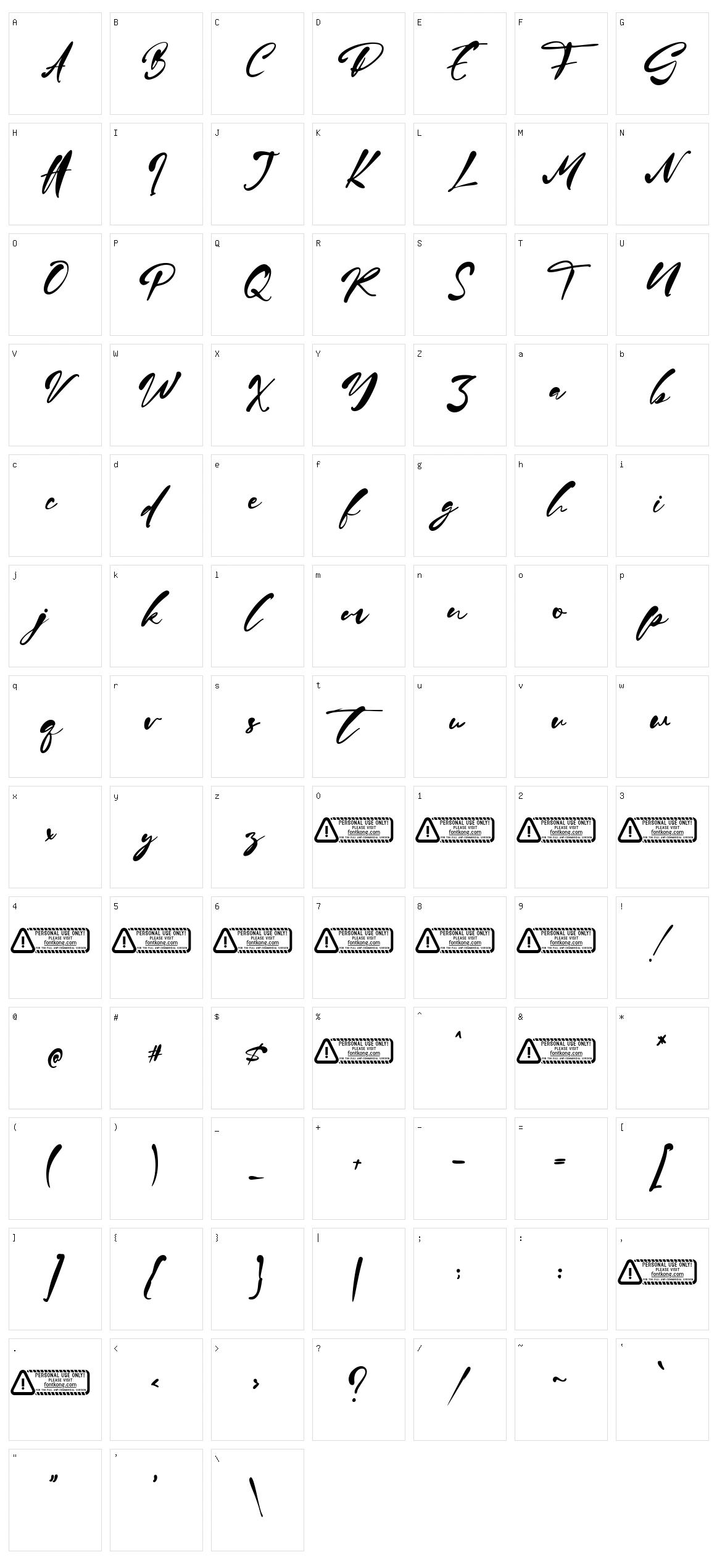
The free font Jason Mary is carefully designed by Kong Font, showcasing a thoughtful balance of creativity and usability and falls under the Script font style. When you download the ZIP file, it contains only 154.81 KB of font files, making it lightweight and quick to download. Please review the license details below to understand permitted usage and distribution rights. If license information is not available, we recommend using this font for personal projects only or contacting the author directly for commercial usage permissions.